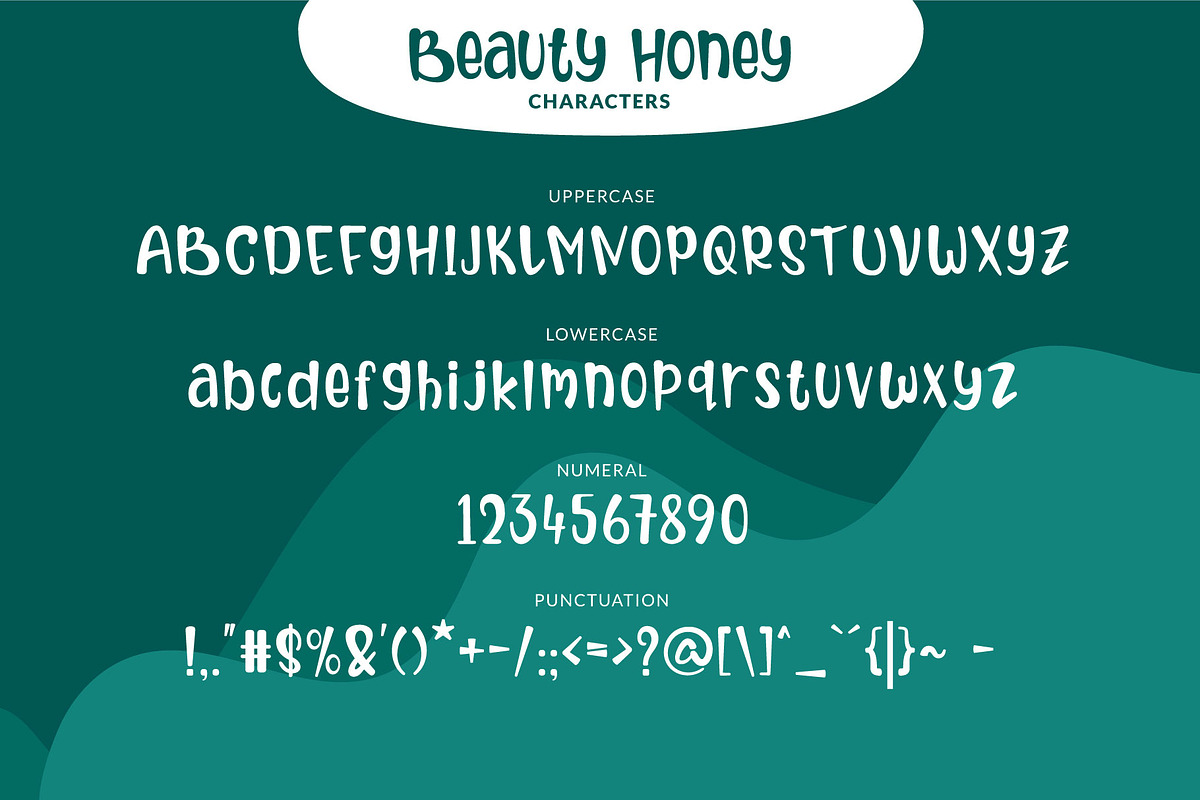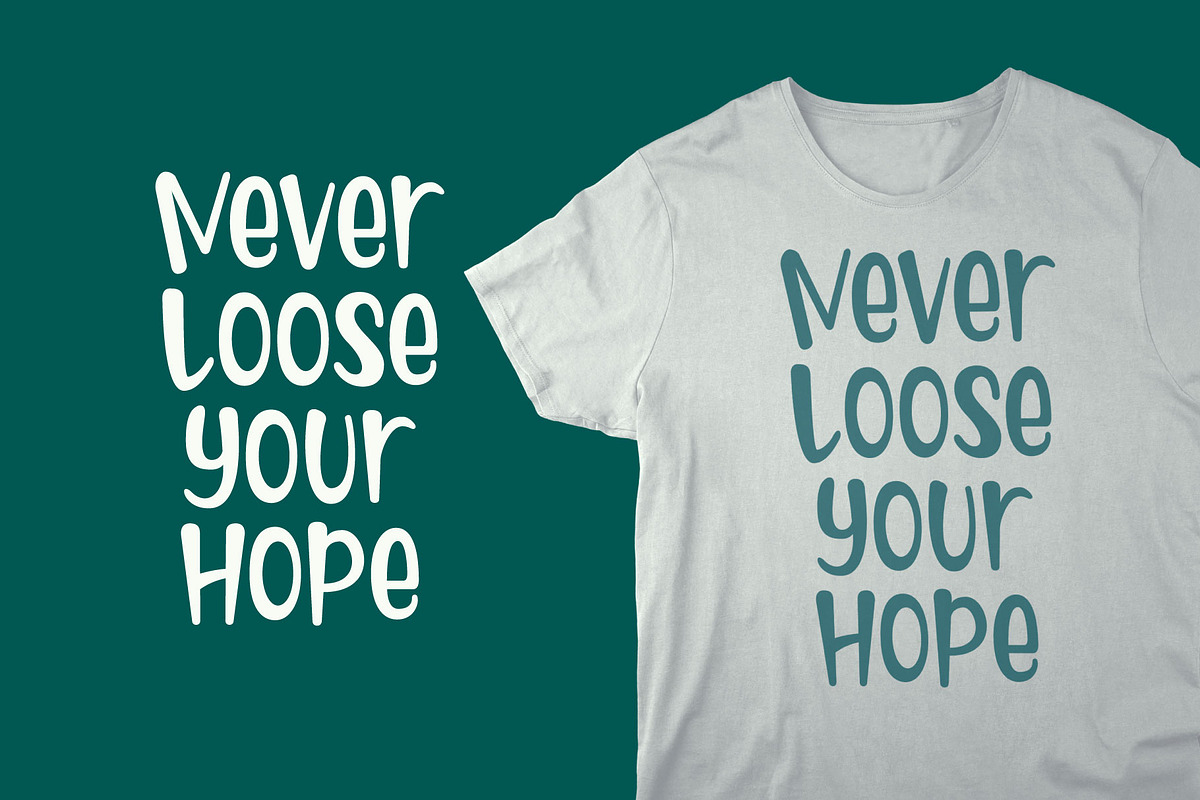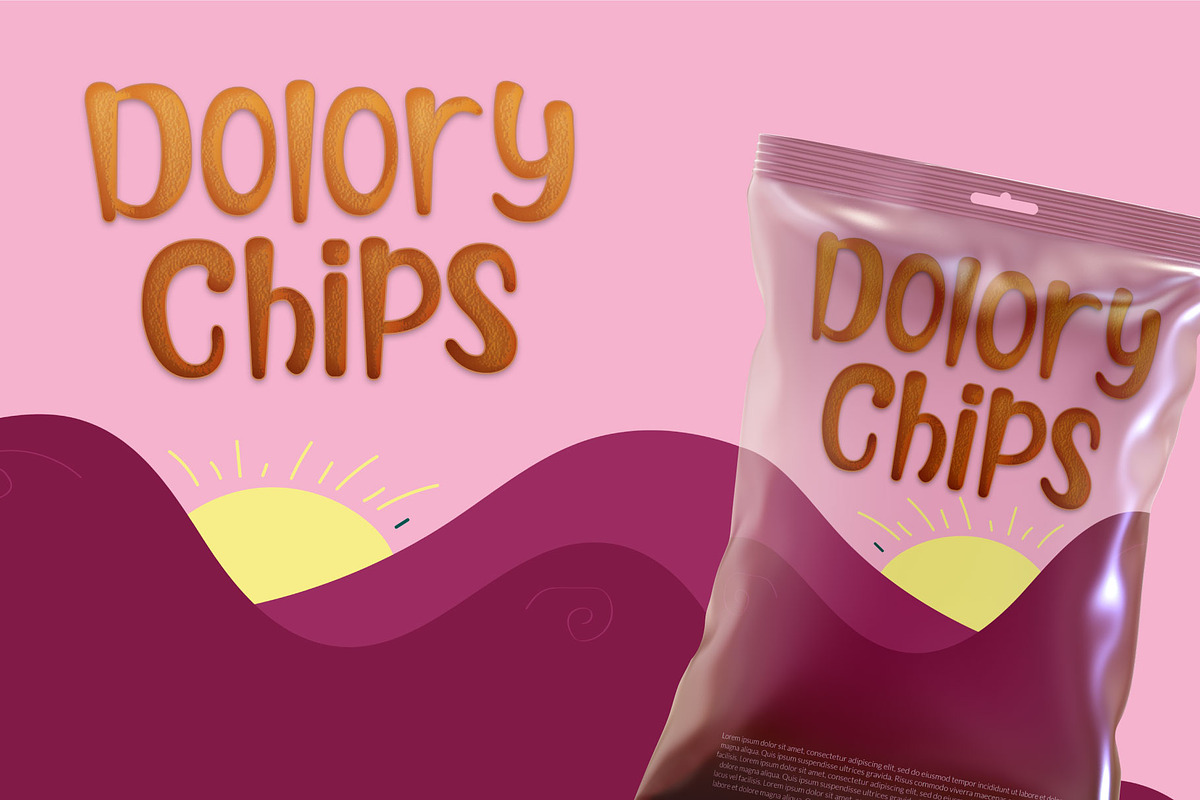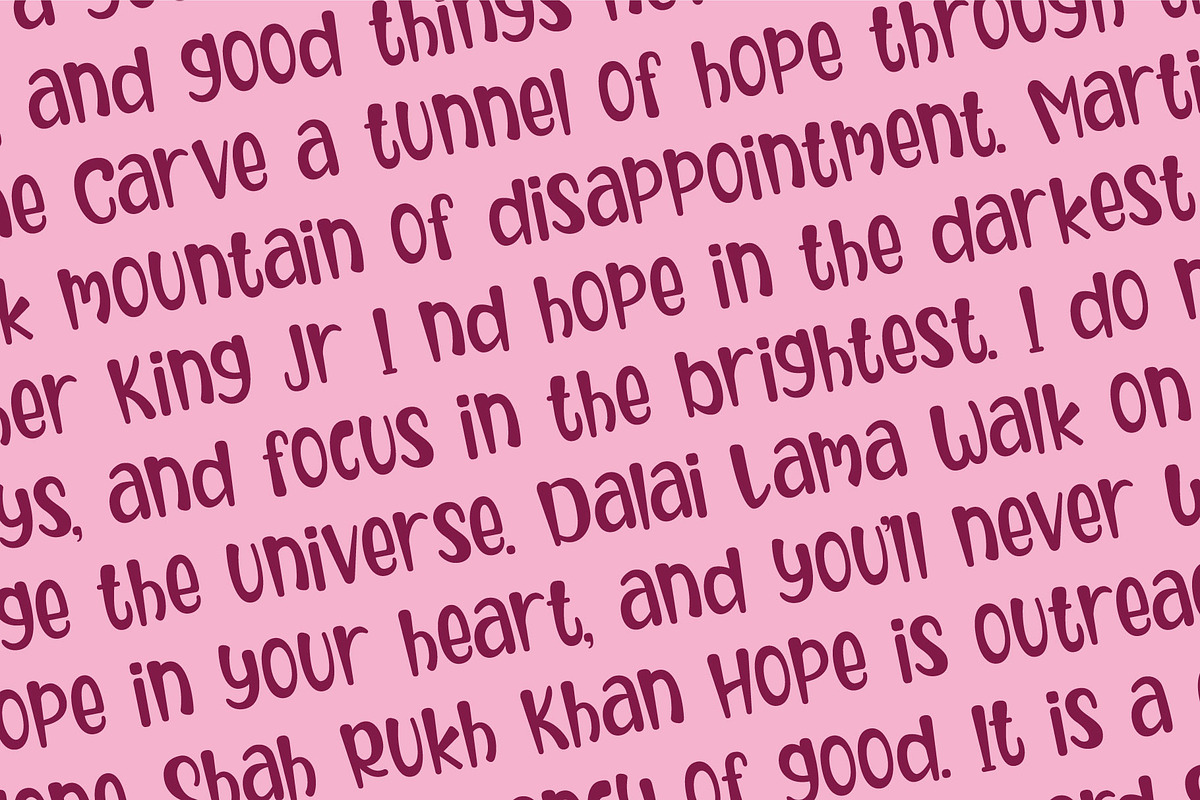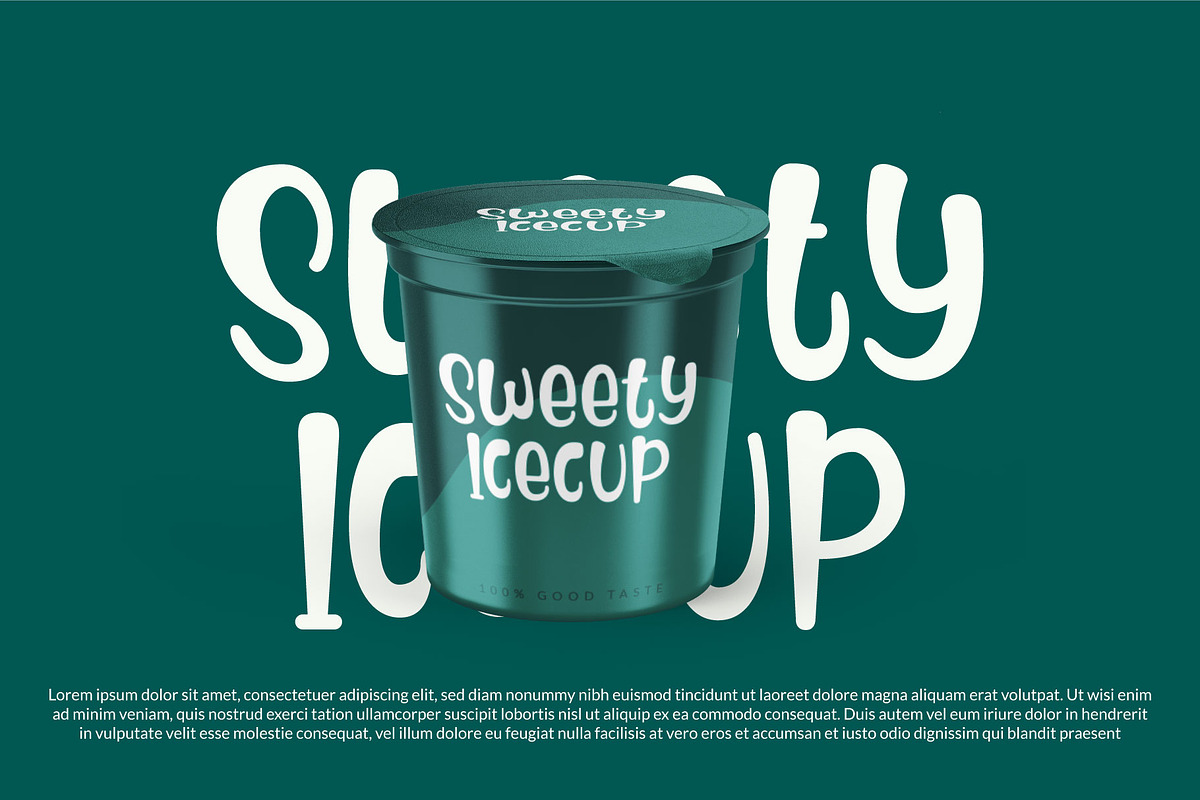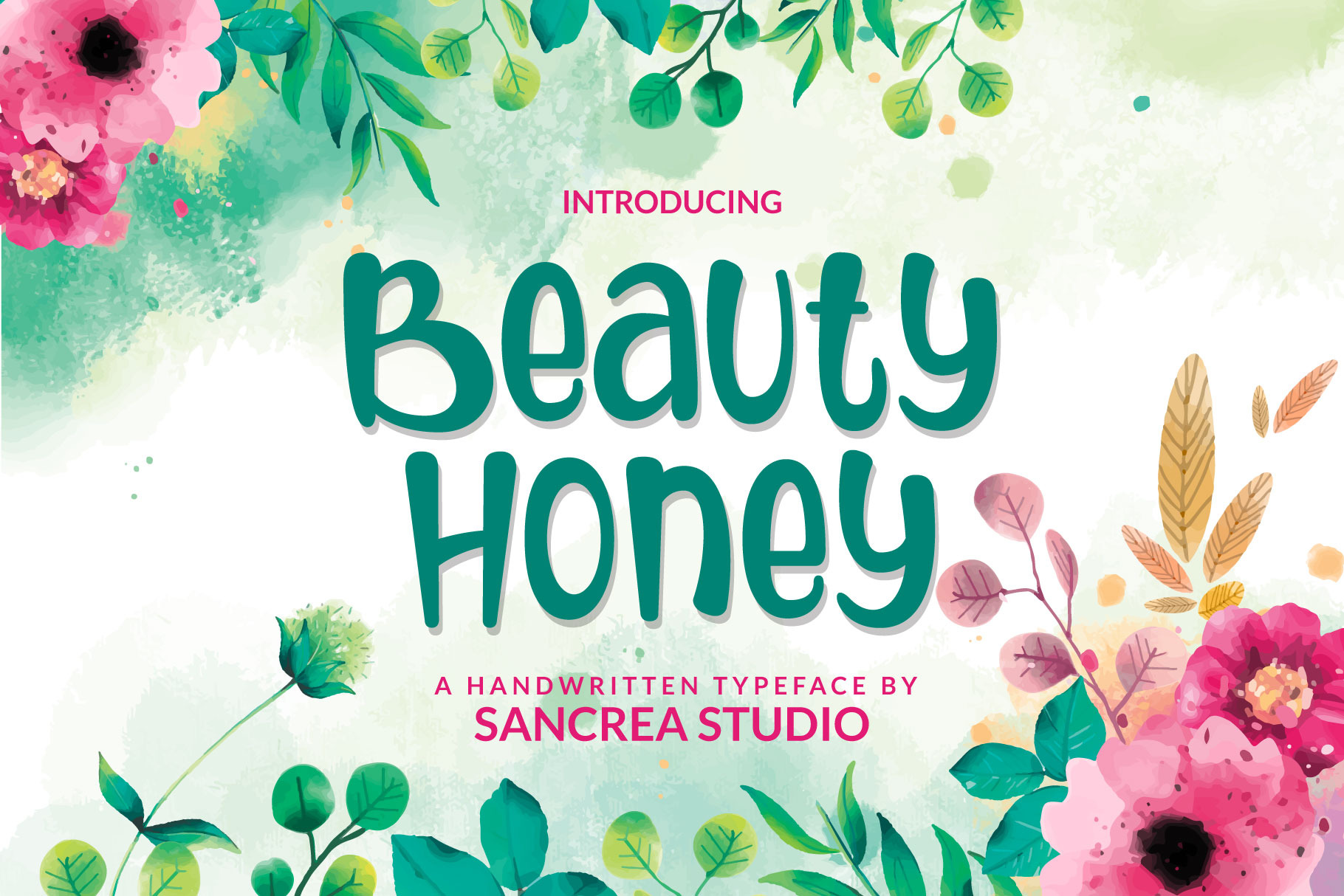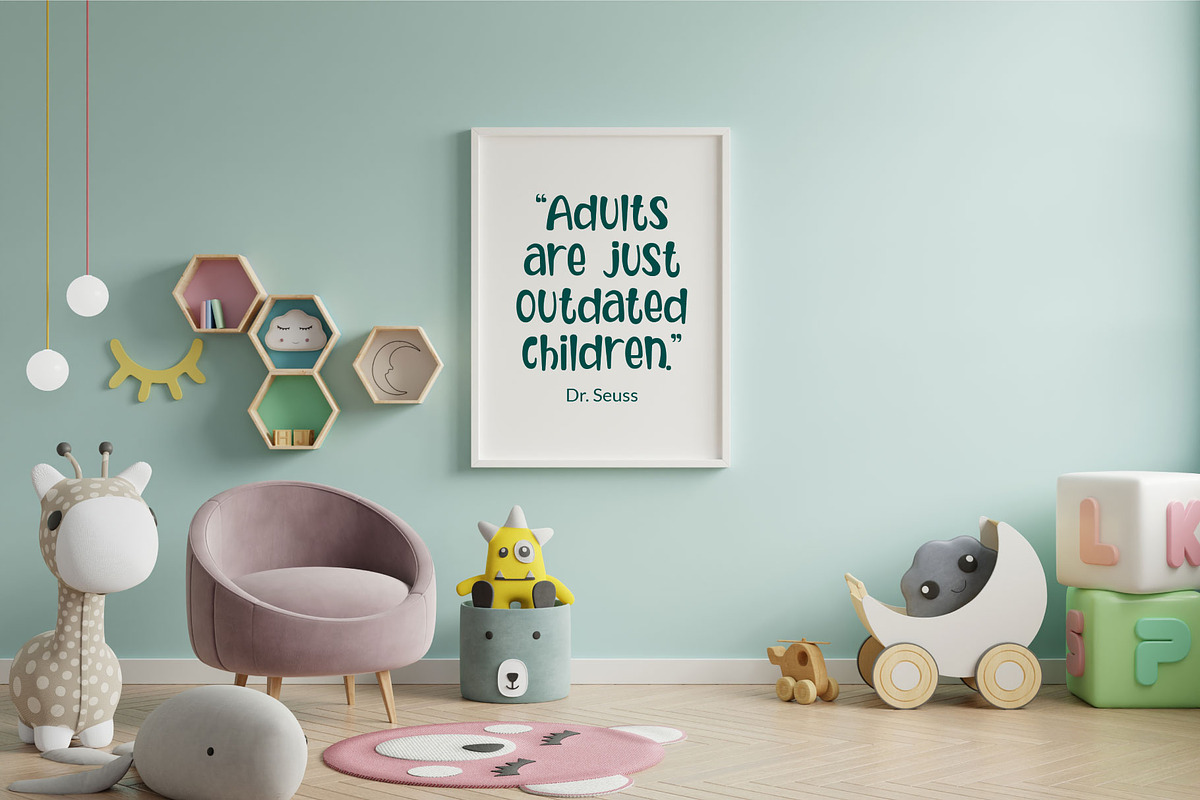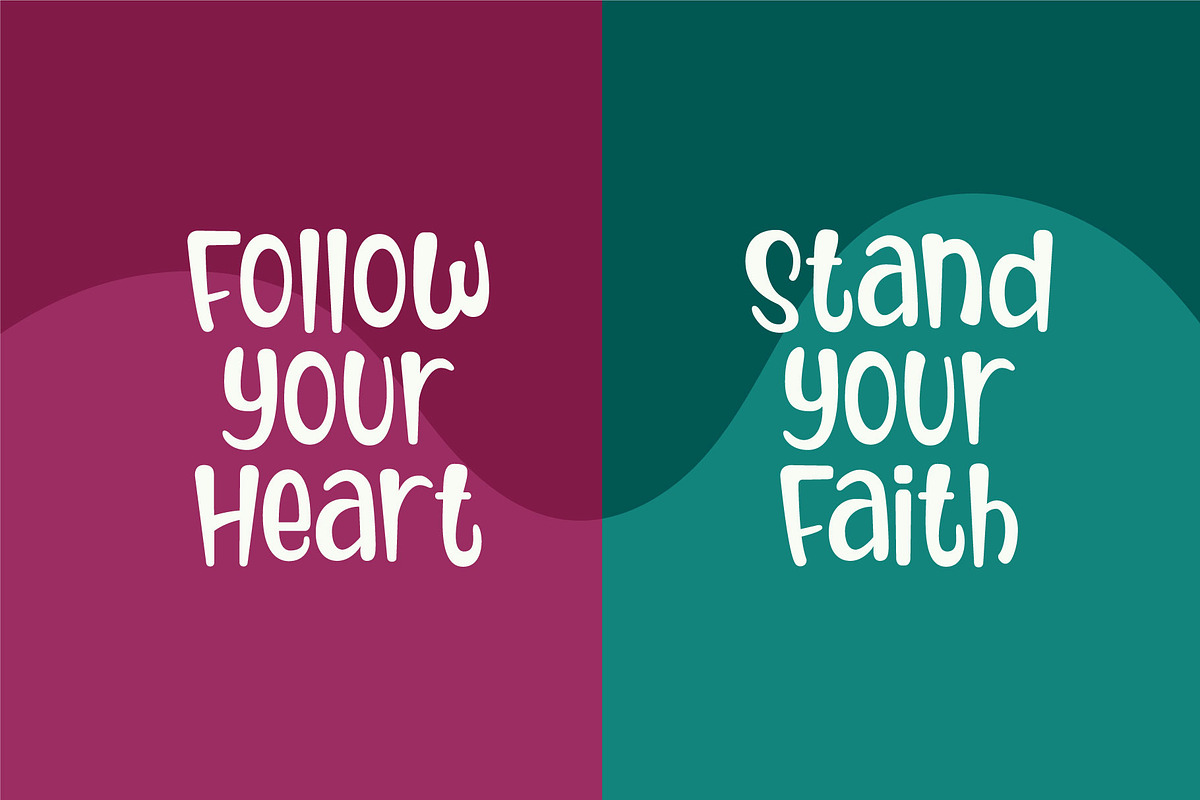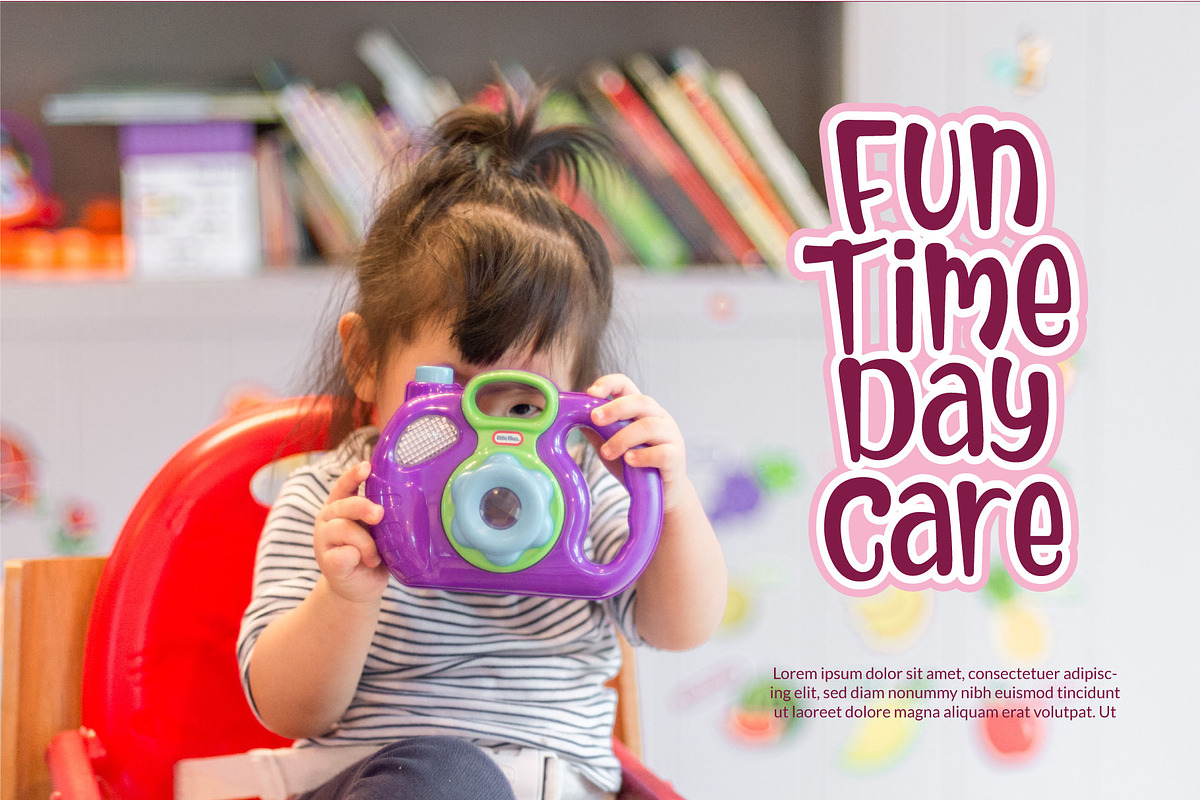
Beauty Honey - A Handwritten Font
Beauty Honey is a handwritten font with big, quirky letters. It is an ALL CAPS font.
This font is perfect for quotes, headings, blogs, logos, invitations and more!
This font does include accent characters.